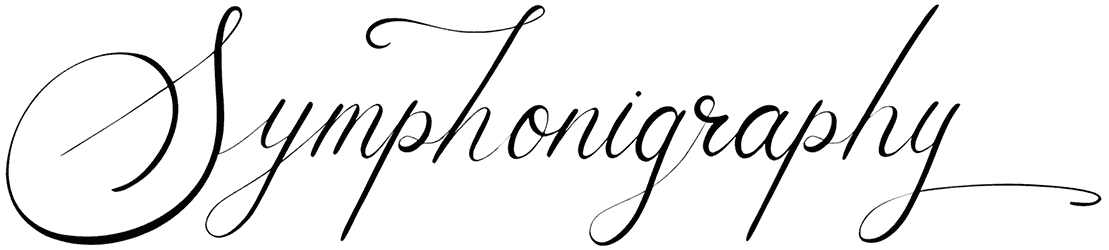
Symphonigraphy Font
Symphonigraphy has rounded strokes and a solid baseline to give you a hearty tone. This calligraphy font is designed by hand with authentic and original artistic twists.
So, if you want to become a trusted brand in fashion and clothing or create a classic aesthetic in your new product ads, consider a particular space for this wedding font. The power of this script font in creating a safe atmosphere for users has made its illegibility unimportant.